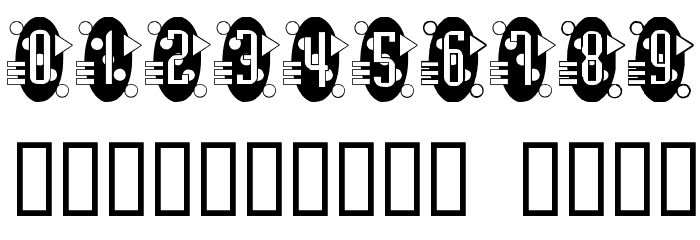
Decorette Font
This font features a unique and bold design with each character enclosed in a decorative, oval-shaped border. The letters and numbers are stylized with a futuristic, almost digital appearance, incorporating geometric shapes and lines that give them a dynamic and eye-catching look. The contrast between the thick and thin lines within each character adds depth and interest, making it stand out. The overall design is reminiscent of retro-futuristic aesthetics, combining elements of vintage technology with modern flair. The special characters are also enclosed in the same decorative borders, maintaining consistency throughout the set.
A bold, decorative font with a retro-futuristic style and geometric elements.
- Font: Decorette
- Proposed Projects: Ideal for sci-fi themed projects, retro posters, video game graphics, and unique branding materials.
- Overall Style: Retro-Futuristic
- Use Case: Logos, Posters, Headlines